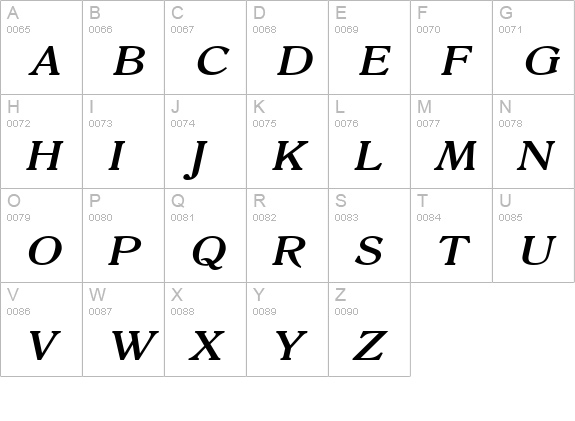
Roomy Wide BoldItalic is a distinctive, extended-width variant in the Roomy typeface family \xE2\x80\x94 well suited to design and typography projects.
Introducing Roomy Wide BoldItalic font - a striking and eye-catching typeface that is sure to make a statement in any design project. With its bold and italicized appearance, Roomy Wide demands attention and exudes a sense of confidence and modernity. The spacious and wide letterforms give this font a unique and impactful presence, making it ideal for headlines, titles, and other display purposes. What's even better is that Roomy Wide BoldItalic font is available for free download at FontsMarket.com. This means you can easily access this versatile and stylish font to elevate your designs without any cost. Don't miss out on the opportunity to add Roomy Wide BoldItalic to your font collection and unleash its bold and expressive potential in your creative projects.